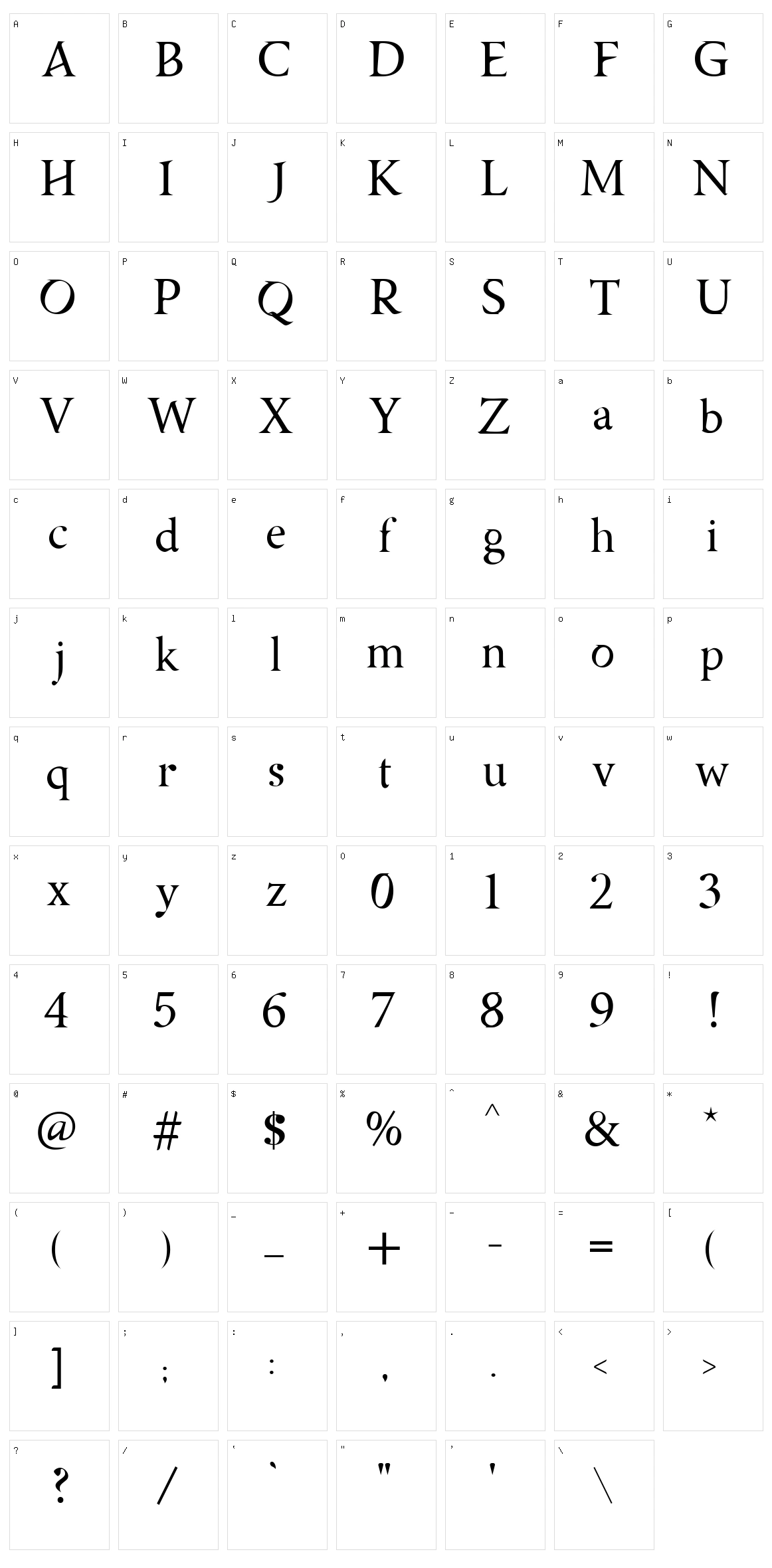
AsMATH is a serif font, useful to create a vintage design,modern design, You can use for headline,
logotype, poster, t-shirt, labels, magazine and much more.